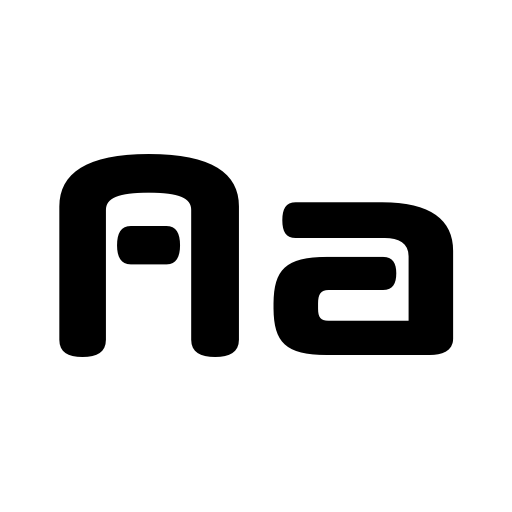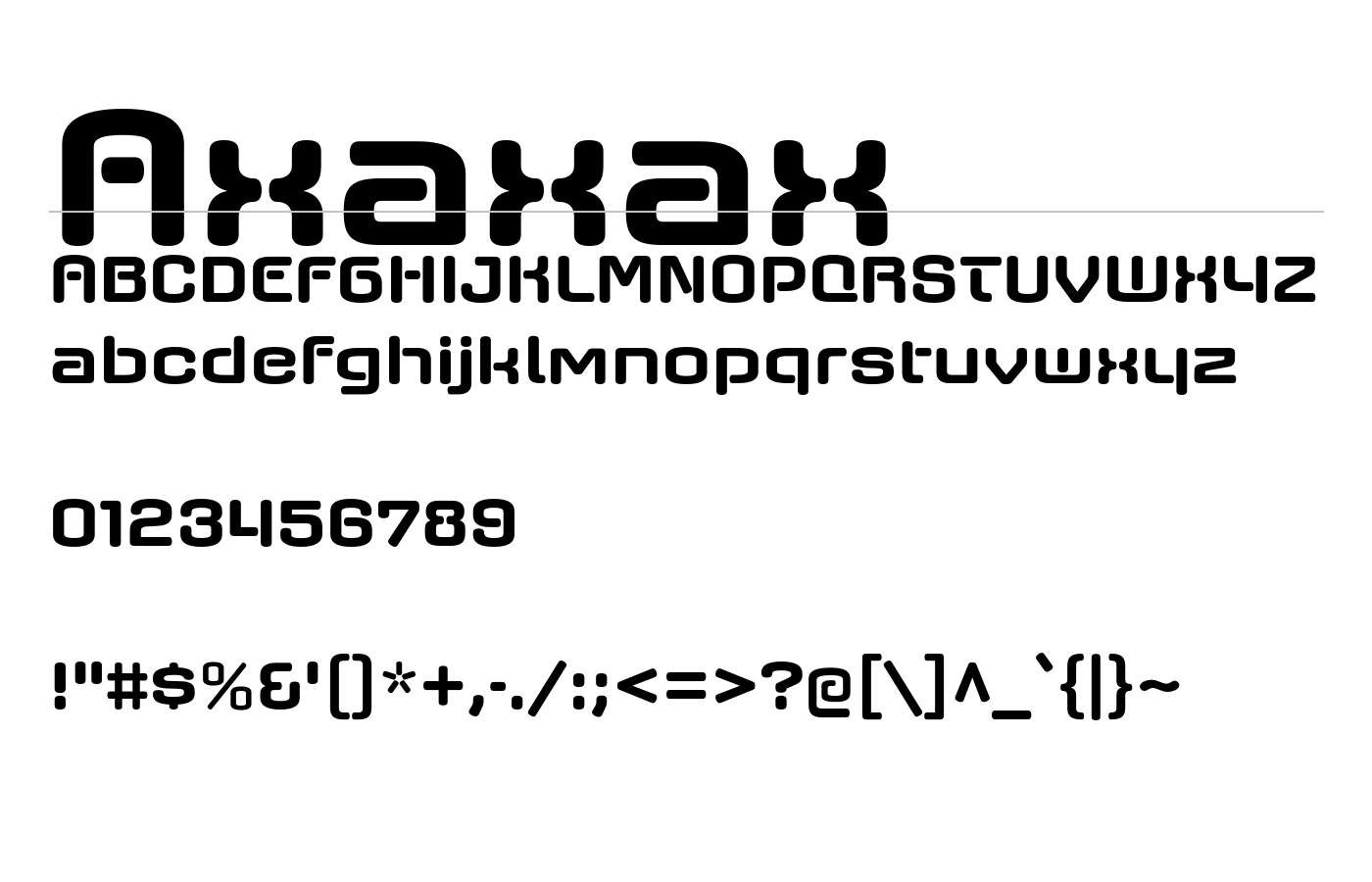
Axaxax is a bold, modern sans serif font with a distinctive geometric style and rounded corners, giving it a friendly and futuristic feel. It features uniform stroke weight, a high x-height, and a clean, almost digital look that works well for tech brands, creative projects, and attention-grabbing headlines. This font is ideal for logos, posters, and websites that aim for a contemporary and innovative vibe.
Axaxax Font
About Axaxax Font
| Font family | Axaxax Font |
| Languages supported | Latin, Symbols, Greek, Armenian |
| Designer | Ray Larabie |